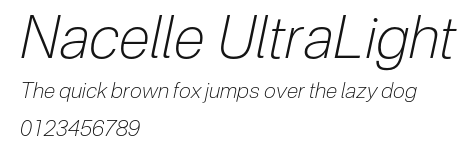
• Font Name: Nacelle UltraLight
• Full Font Name: Nacelle UltraLight Italic
• Designer: Sora Sagano
About Nacelle UltraLight.otf
Nacelle UltraLight.otf is a modern, elegant sans-serif font designed for ultimate readability and visual harmony. Perfect for branding, headlines, web design, and print materials.